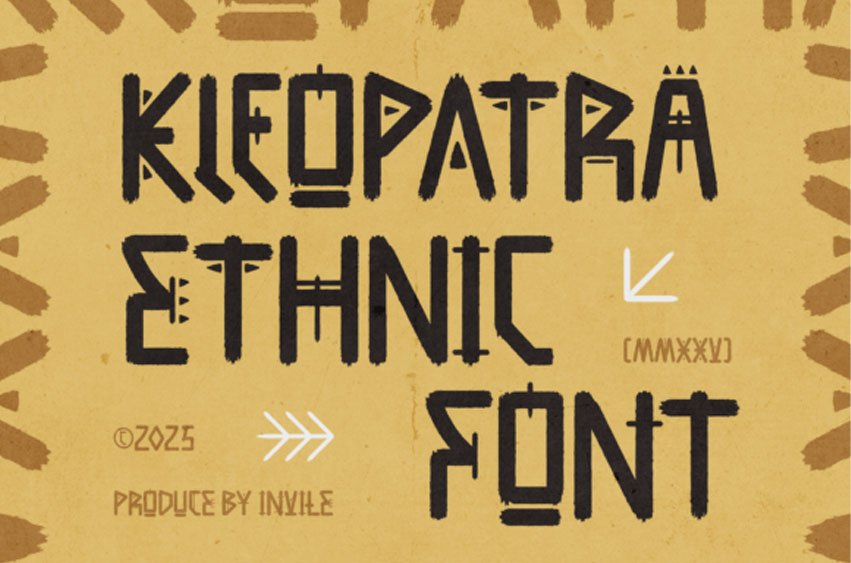
Kleopatra Regular Font
Kleopatra Regular Font is a tribal-inspired display font that draws from ancient symbols and African aesthetics.
Its rough texture and geometric shapes make it a perfect fit for ethnic-themed projects, packaging, branding, and bold headlines with a handmade and historical feel.